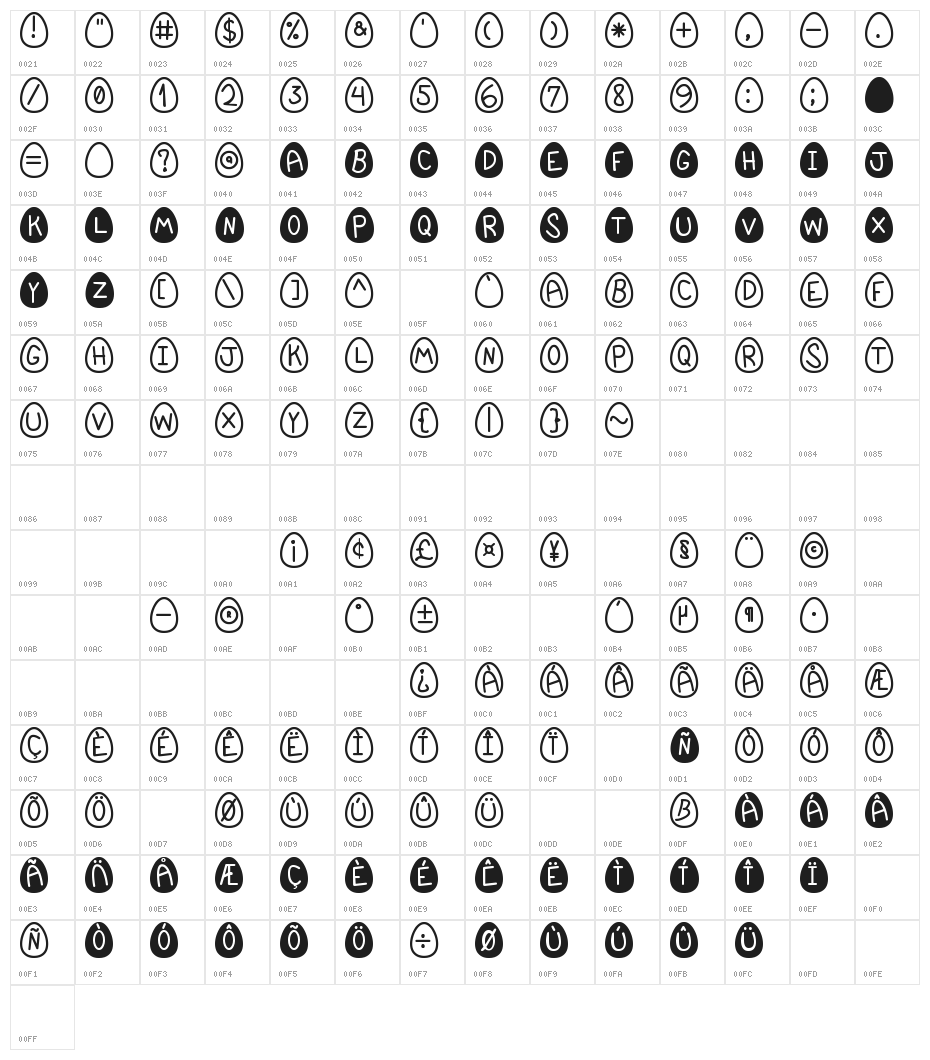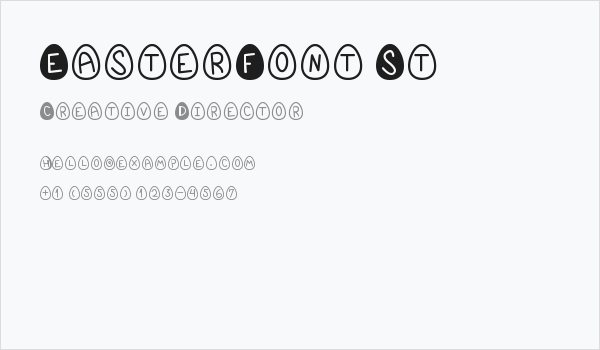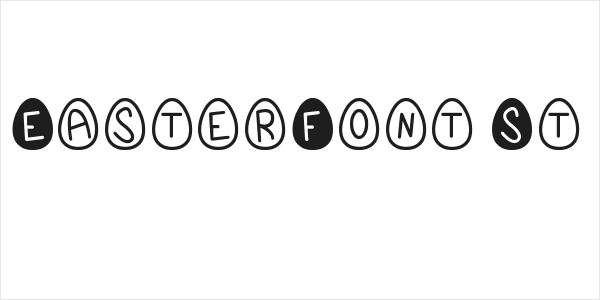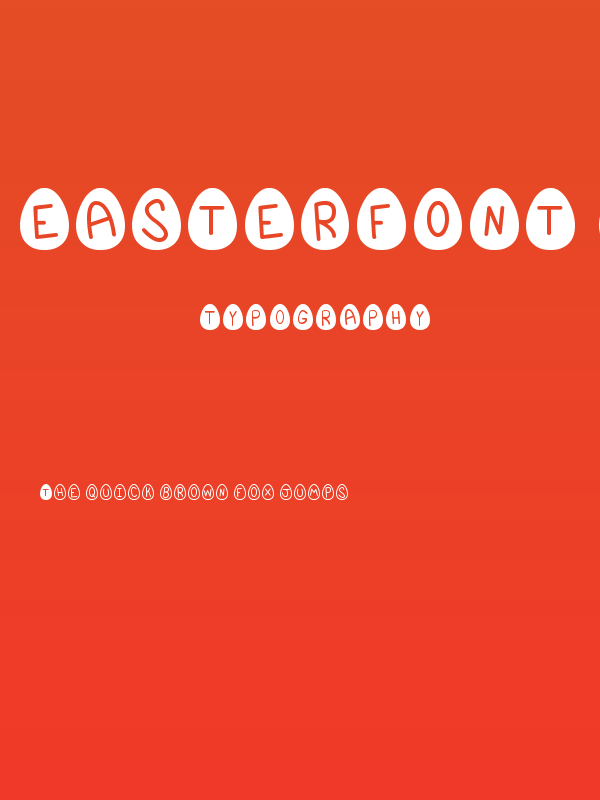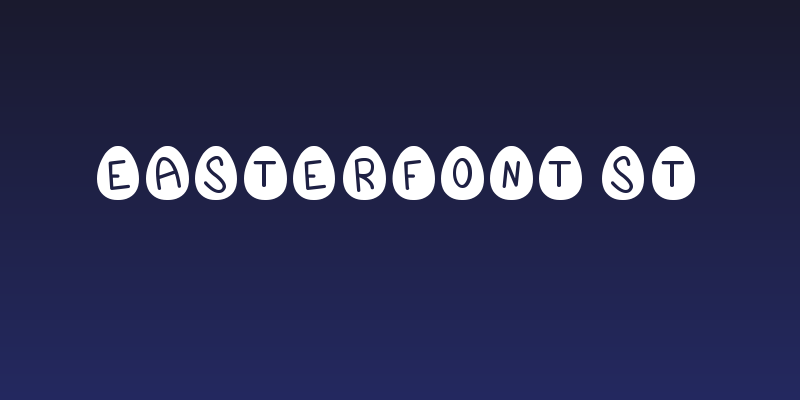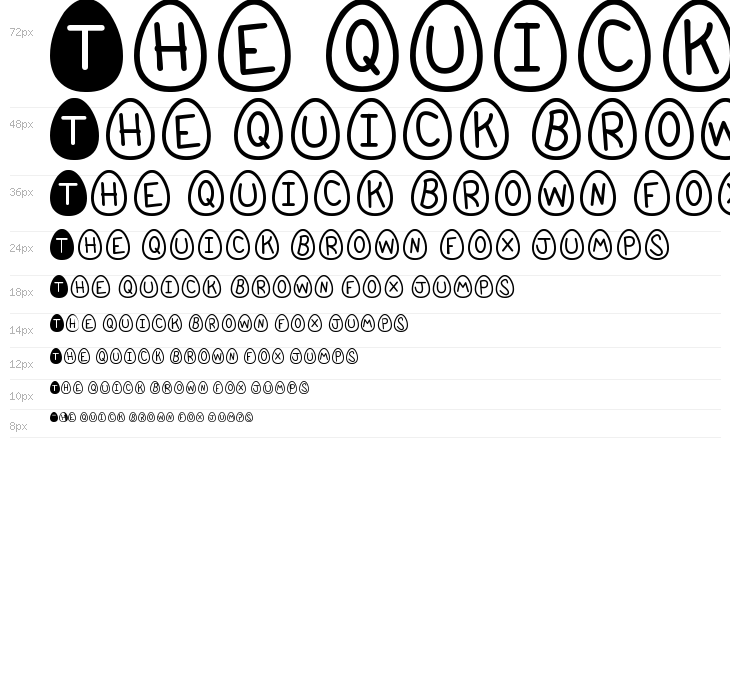
EasterFont St Font
EasterFont St Description
This playful and decorative font features characters enclosed in egg-shaped outlines, creating a whimsical and festive appearance. The uppercase and lowercase letters, as well as numbers and special characters, are all consistently styled with a hand-drawn aesthetic. The rounded forms and casual strokes give it a friendly and approachable feel, making it ideal for projects that require a touch of fun and creativity. The font's unique design is perfect for seasonal themes, particularly those related to Easter or springtime celebrations.
Use CaseHeadlines, Logos, Seasonal Themes
Proposed ProjectsIdeal for Easter-themed designs, greeting cards, children's books, and playful branding.